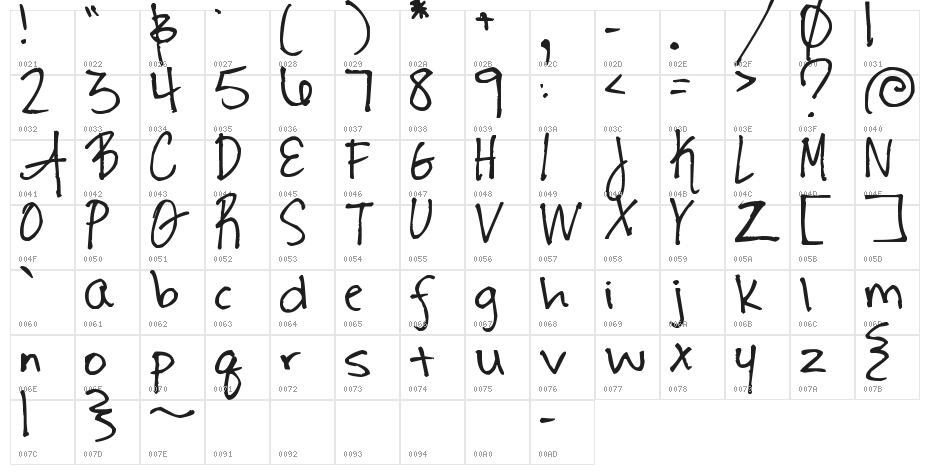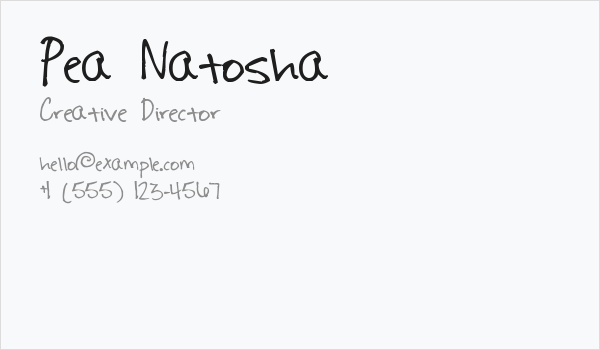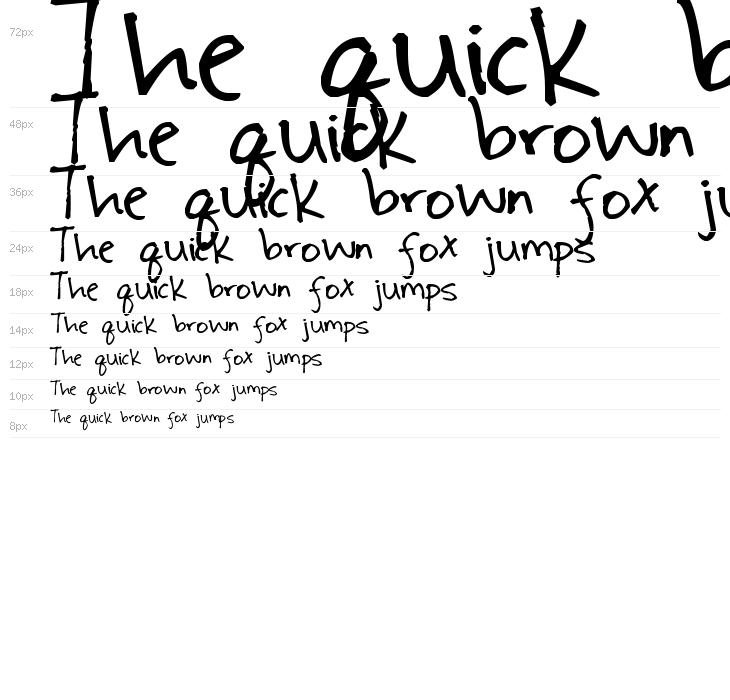
Pea Natosha Font
Pea Natosha Description
This font exudes a playful and casual handwritten style, characterized by its loose and informal strokes. The letters are unevenly sized, giving it a spontaneous and lively appearance. The uppercase letters are bold and slightly slanted, while the lowercase letters maintain a consistent flow with rounded edges. Numbers and special characters follow the same whimsical style, adding to the font's overall charm. The font's unique personality makes it suitable for projects that require a personal touch or a sense of creativity.
| Proposed Projects | Ideal for greeting cards, personal blogs, children's books, and creative branding projects. |